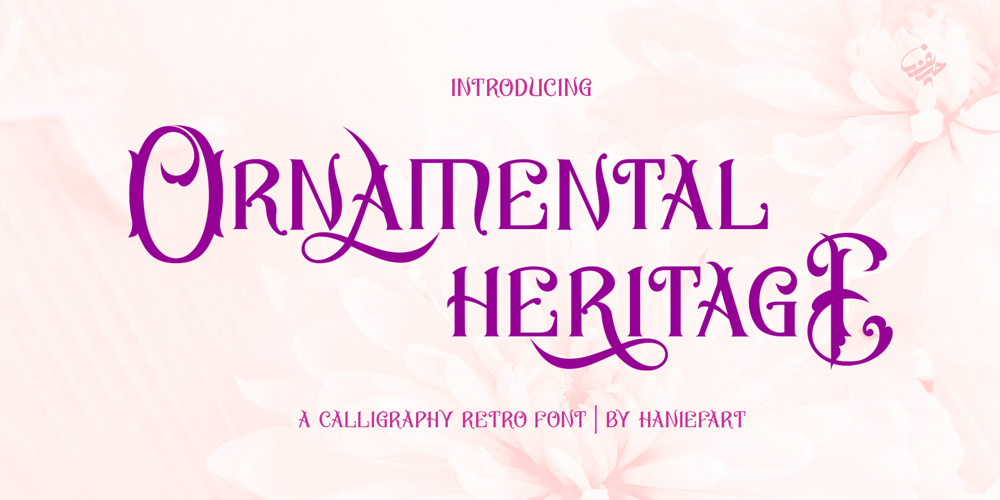
Ornamental Heritage Font Family was designed by Hanif Maulazi and published by Haniefart. Ornamental Heritage contains 1 styles and family package options. Ornamental Heritage is a classic hand-drawn style font modified with various ornaments to make it look attractive and look modern and elegant. Ornamental Heritage can be used for company brands, logos, movie titles, drink bottles, drinking glasses and so on. Ornamental Heritage also includes punctuation, quotation marks, numbers, symbols and more.